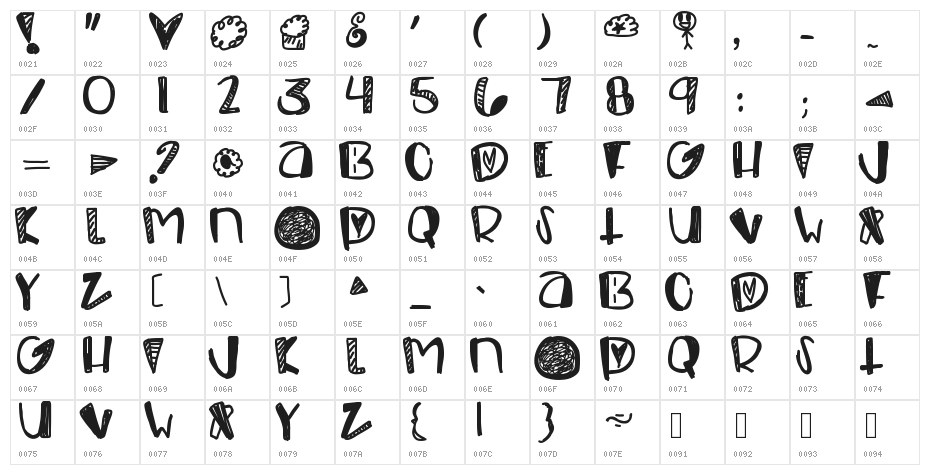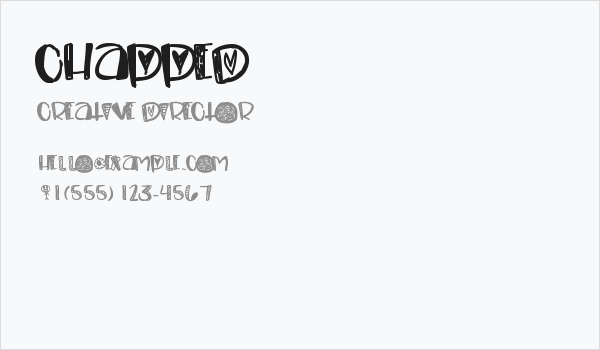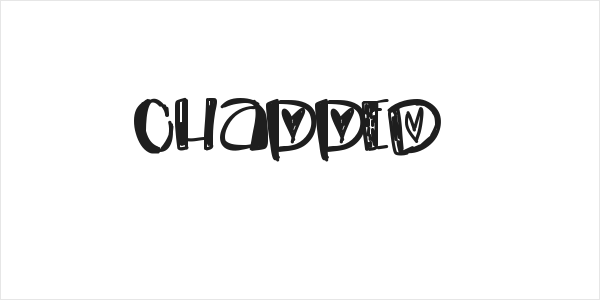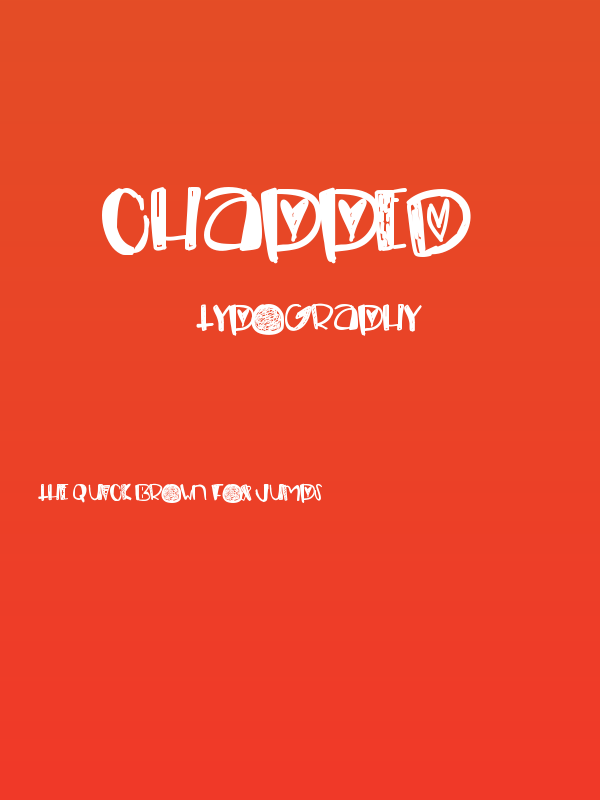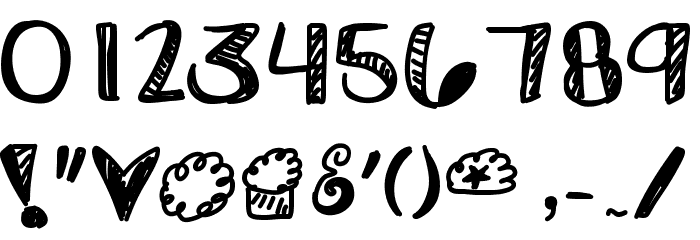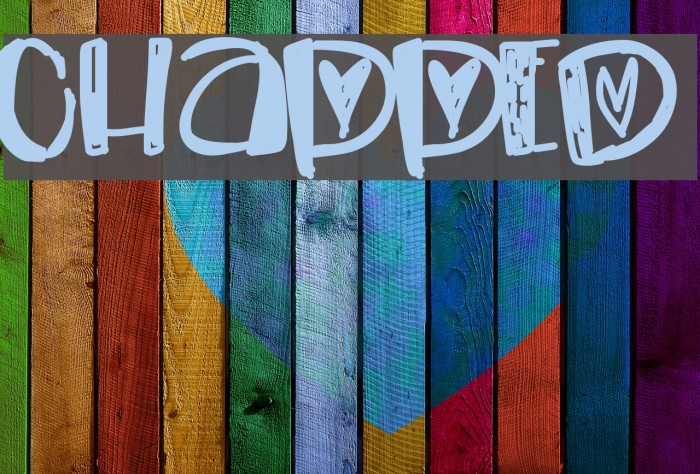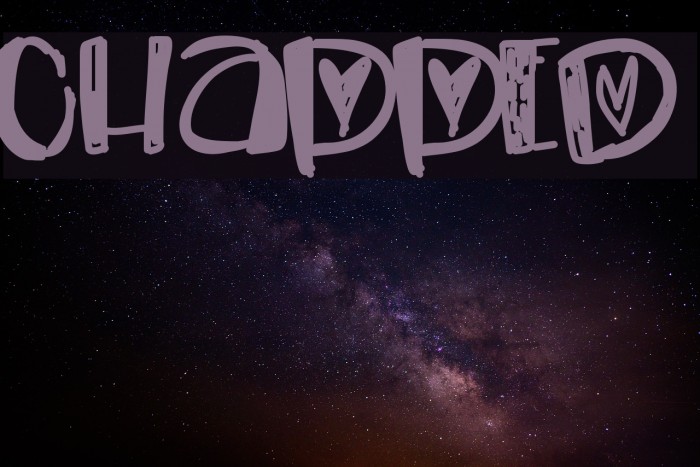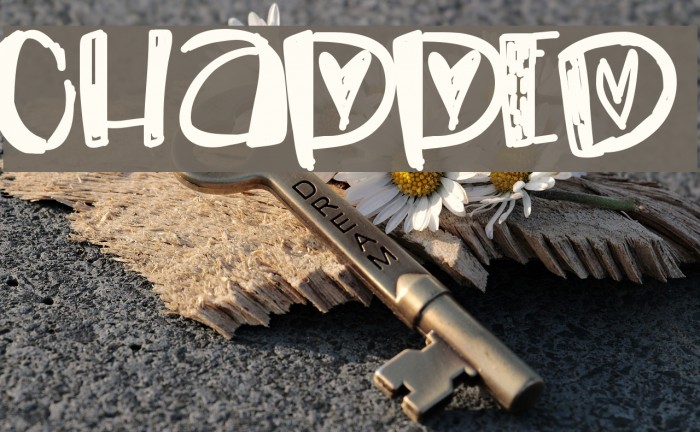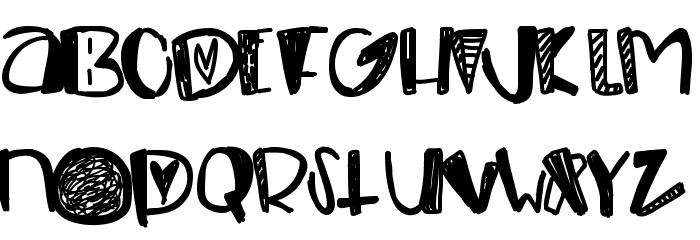
Chapped Font
Chapped Description
This font features a playful and artistic style, characterized by its bold, hand-drawn appearance. Each letter is uniquely crafted with a rough, textured look, giving it a whimsical and creative feel. The uppercase and lowercase letters maintain a consistent style, with some letters incorporating decorative elements like hearts and swirls. The numbers and special characters follow the same artistic theme, adding to the font's overall charm. This font is perfect for projects that require a fun and informal touch, such as children's books, greeting cards, or creative branding.
| Overall Style | Playful, Artistic, Whimsical |
| Proposed Projects | Ideal for children's books, greeting cards, creative branding, and playful designs. |